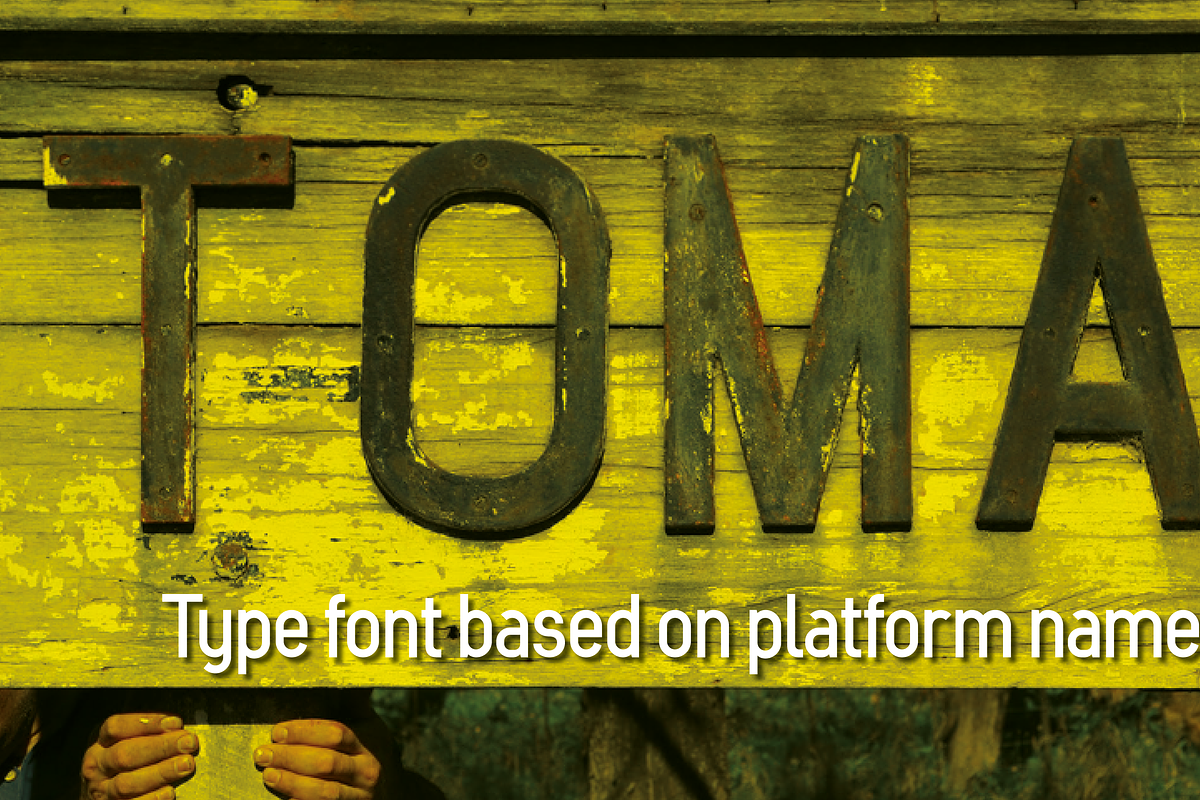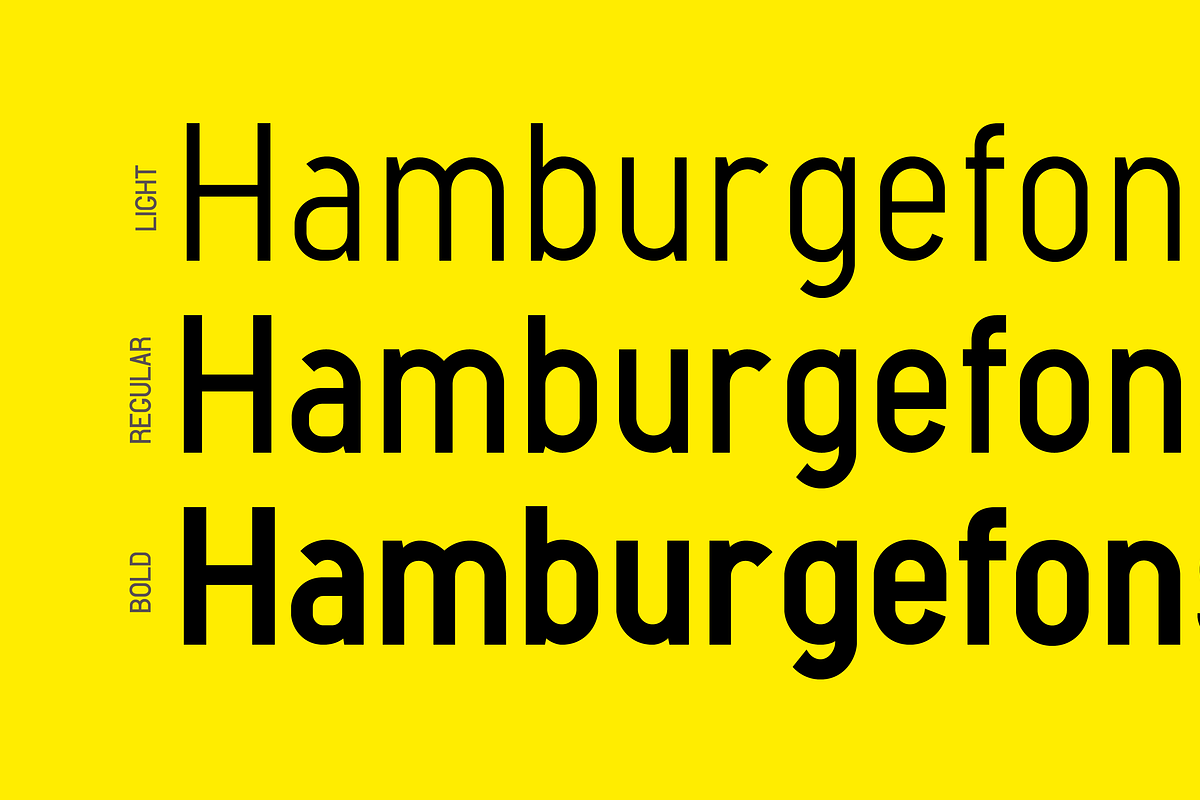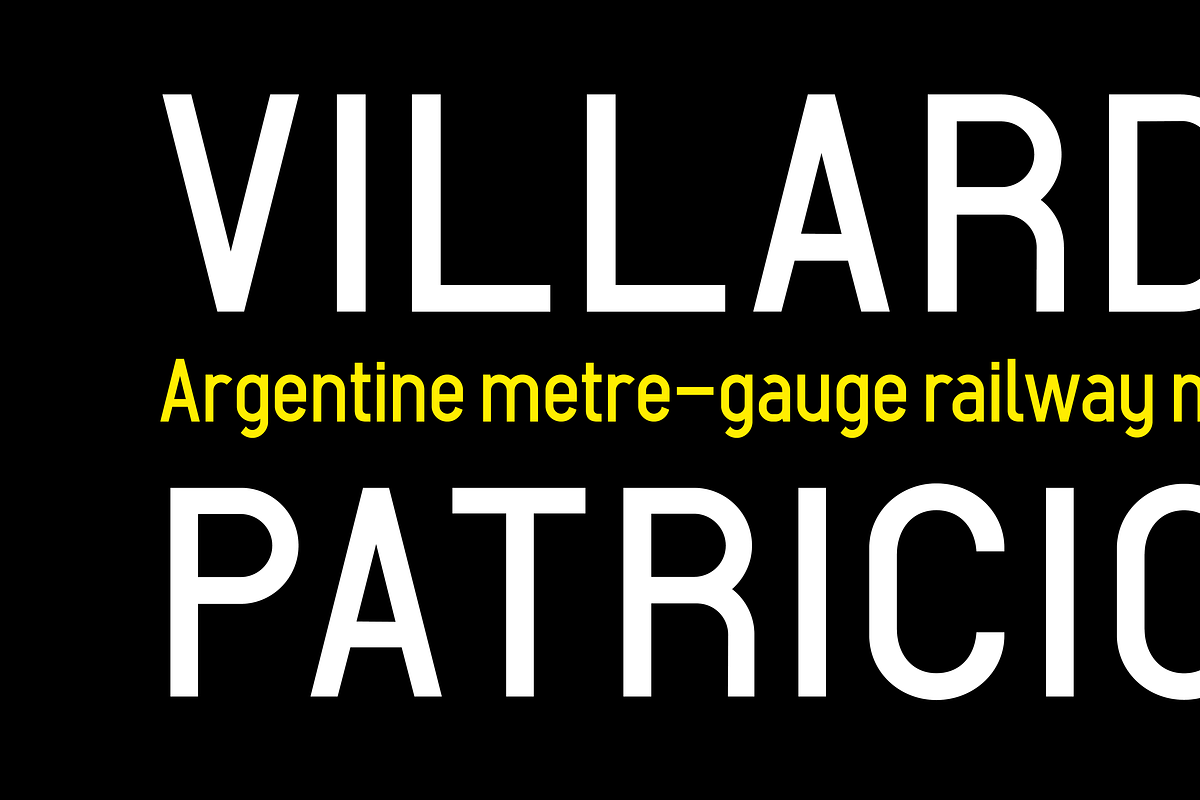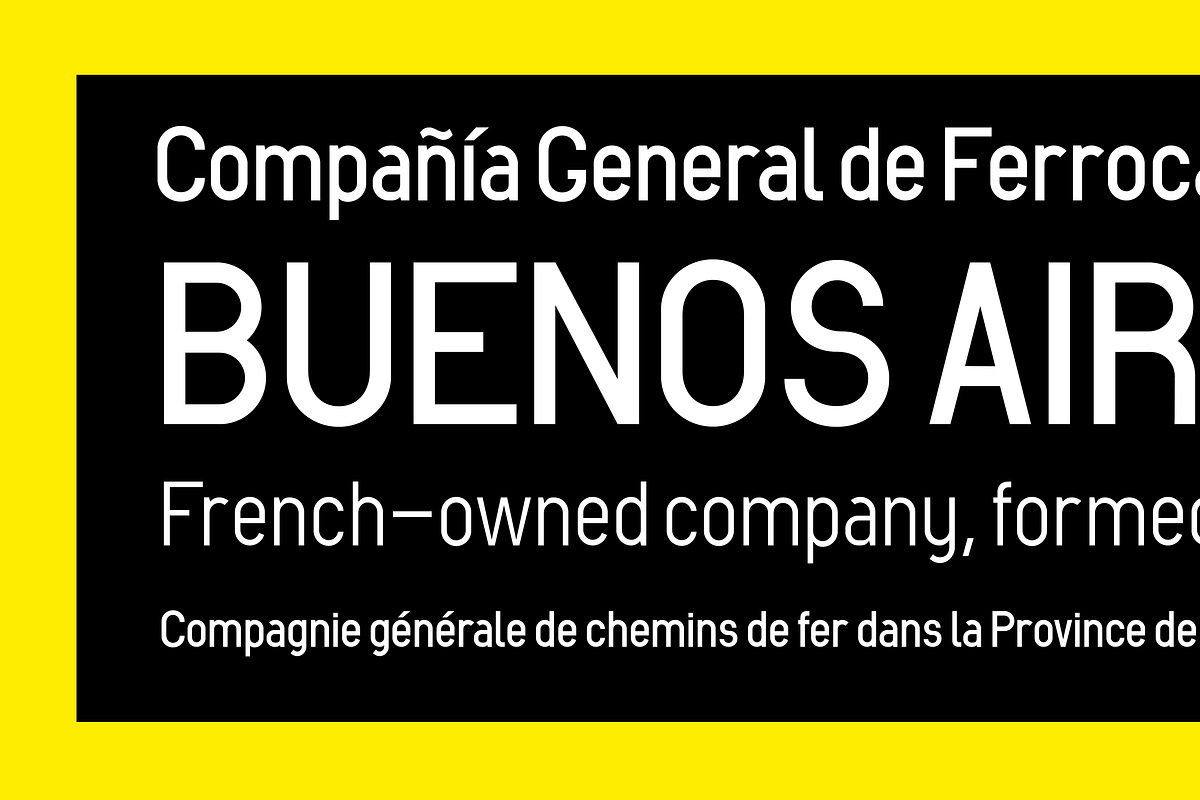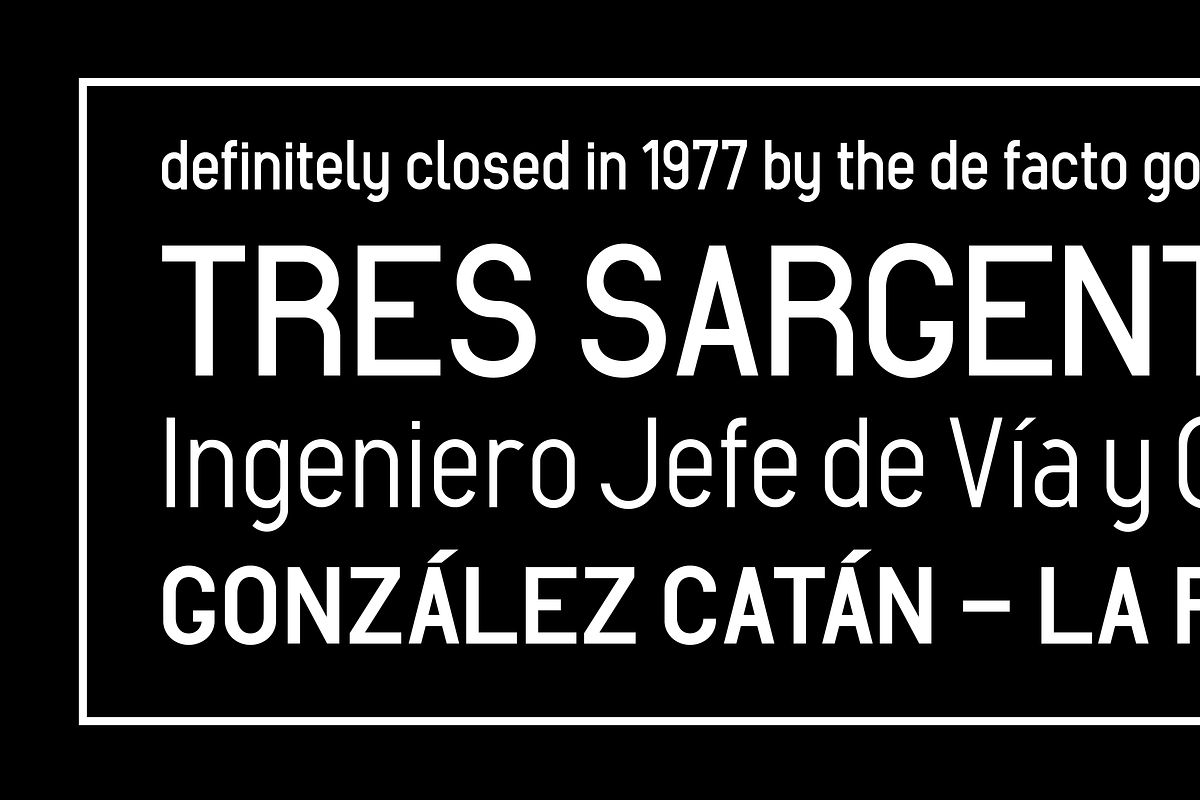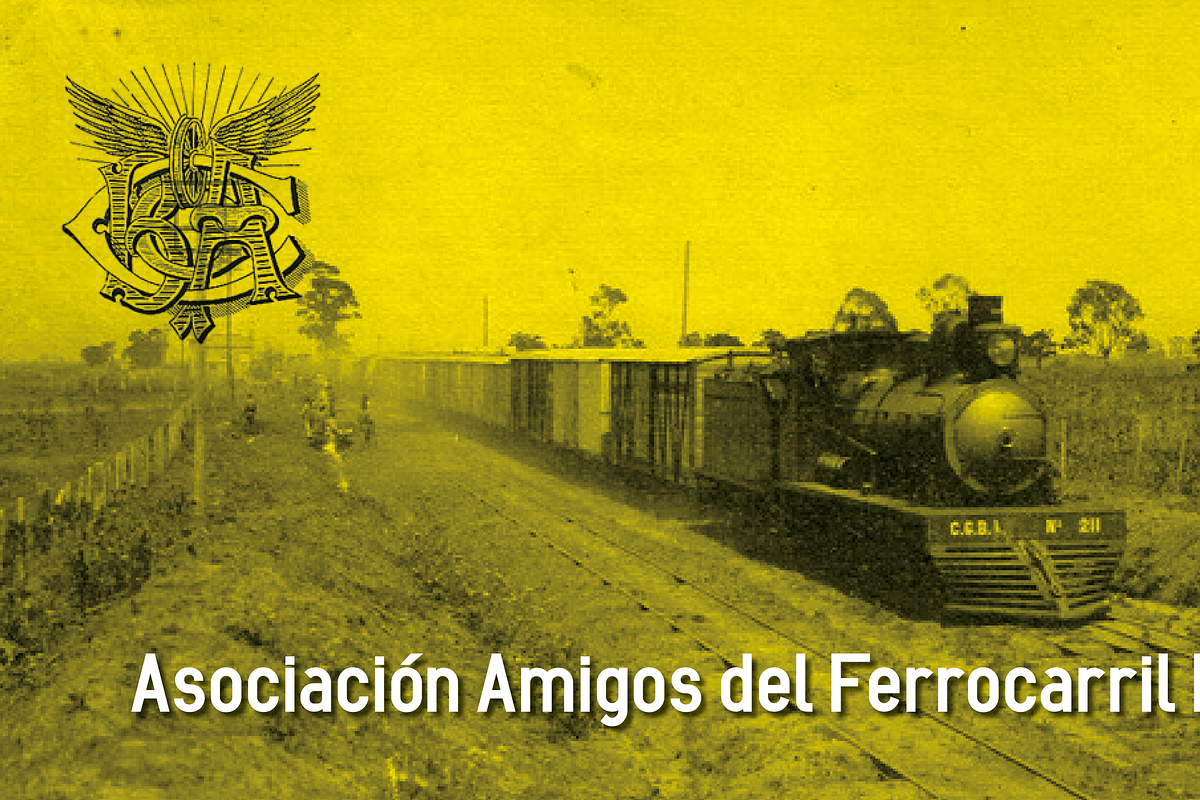
Compania Railwail
Compania Railway is a geometric sans-serif typeface inspired by the signage found on railway stations operated by the Compagnie générale de chemins de fer dans la Province de Buenos Aires. The font features clean, rounded geometric shapes and lacks line modulation, resulting in a distinct vintage aesthetic.